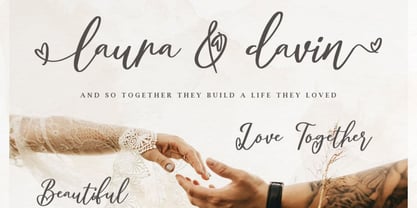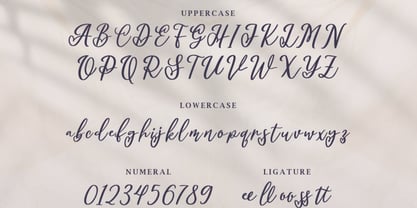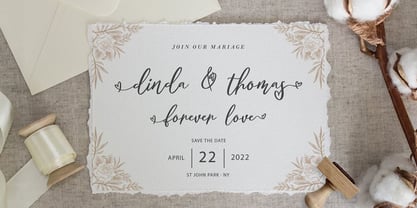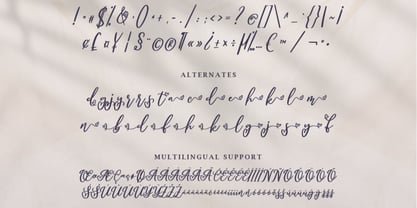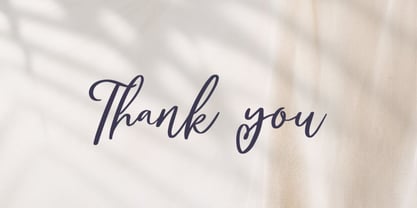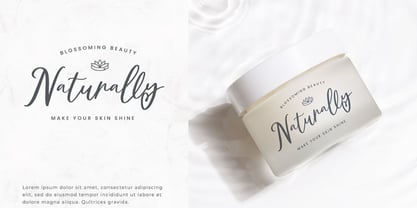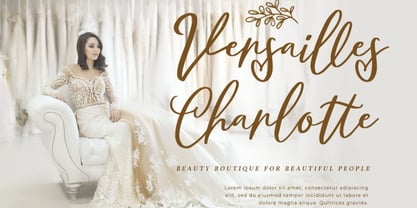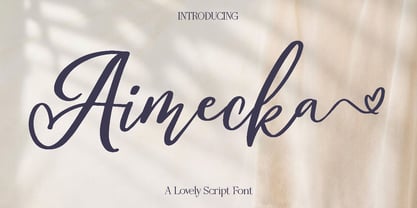
Aimecka
The Aimecka Font Family was designed by Olivia Love and published by Only Fonts. Aimecka contains 1 styles. More about this family
Aimecka – Elegant Handwritten Script Font Aimecka is a classy and graceful script font designed to capture the beauty of natural handwriting with a refined, modern touch. Inspired by fluid pen strokes and the charm of personal lettering, Aimecka brings warmth, elegance, and authenticity into every project. Its smooth curves and delicate connections create a soft, expressive rhythm that feels both stylish and inviting. This font shines in designs that call for a personal yet sophisticated tone. Aimecka is perfect for logos, beauty and skincare branding, wedding invitations, greeting cards, quotes, social media graphics, packaging, and editorial accents. Whether used for bold headlines or subtle details, it adds a sense of charm and handcrafted personality that makes any design feel more intimate and memorable. Aimecka’s balanced letterforms ensure readability while maintaining a stylish handwritten feel. The combination of ligatures and alternates allows you to create natural-looking typography with beautiful variation, giving your work a polished and unique appearance. Its versatility makes it suitable for both print and digital projects, from elegant branding to creative layouts. Bring a touch of elegance and heartfelt expression to your designs with Aimecka. Its timeless script style helps you create visuals that feel personal, stylish, and effortlessly beautiful. Aimecka Script Font Features: • Uppercase and lowercase characters • Symbols, punctuation, and numerals • Ligatures and alternates • Multilingual support